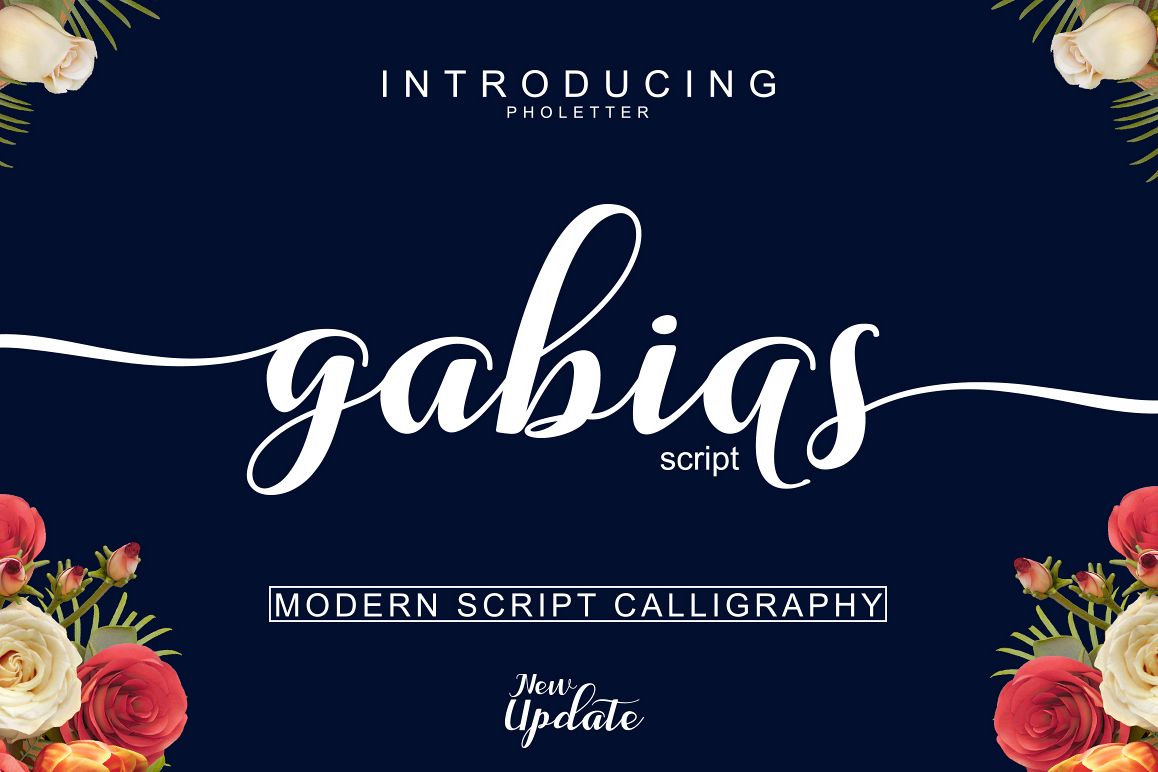
Gabias Script is a fun, modern and stylish calligraphy inspired script font. Complete with 426+ glyphs, Gabias Script is the perfect font for your script font work.